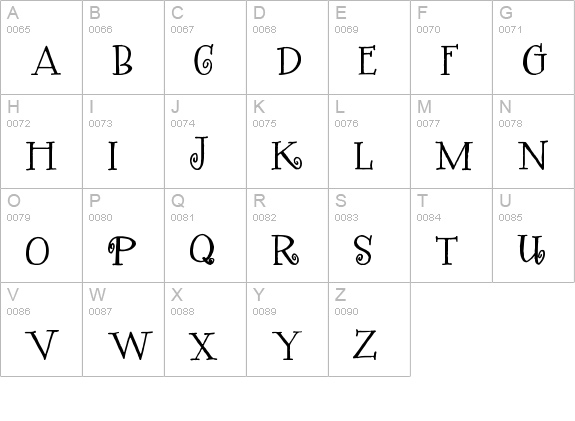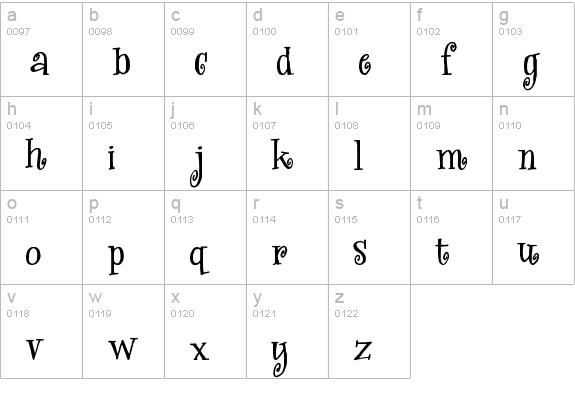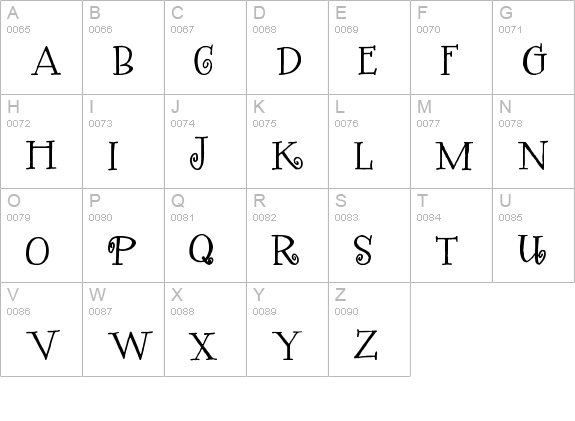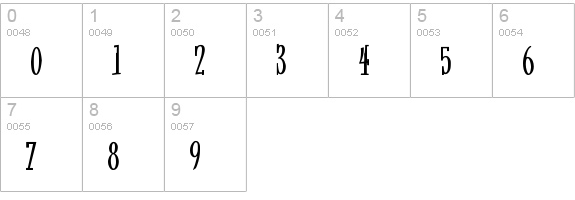
Kwekel Font Details
Kwekel font is a stunning typeface that exudes elegance and sophistication. Its sleek and modern design makes it perfect for a wide range of projects, from branding to editorial design. The clean lines and graceful curves of Kwekel font give it a timeless appeal that will elevate any piece of text it is applied to. The best part about Kwekel font is that it is completely free to download at FontsMarket.com. This means that you can easily access this beautiful typeface without having to worry about any costs. Whether you're a designer working on a client project or an individual looking to add a touch of class to your personal creations, Kwekel font is a fantastic choice that won't break the bank. Don't miss out on the opportunity to enhance your designs with the exquisite Kwekel font. Download it for free today at FontsMarket.com and see the difference it can make in your work.